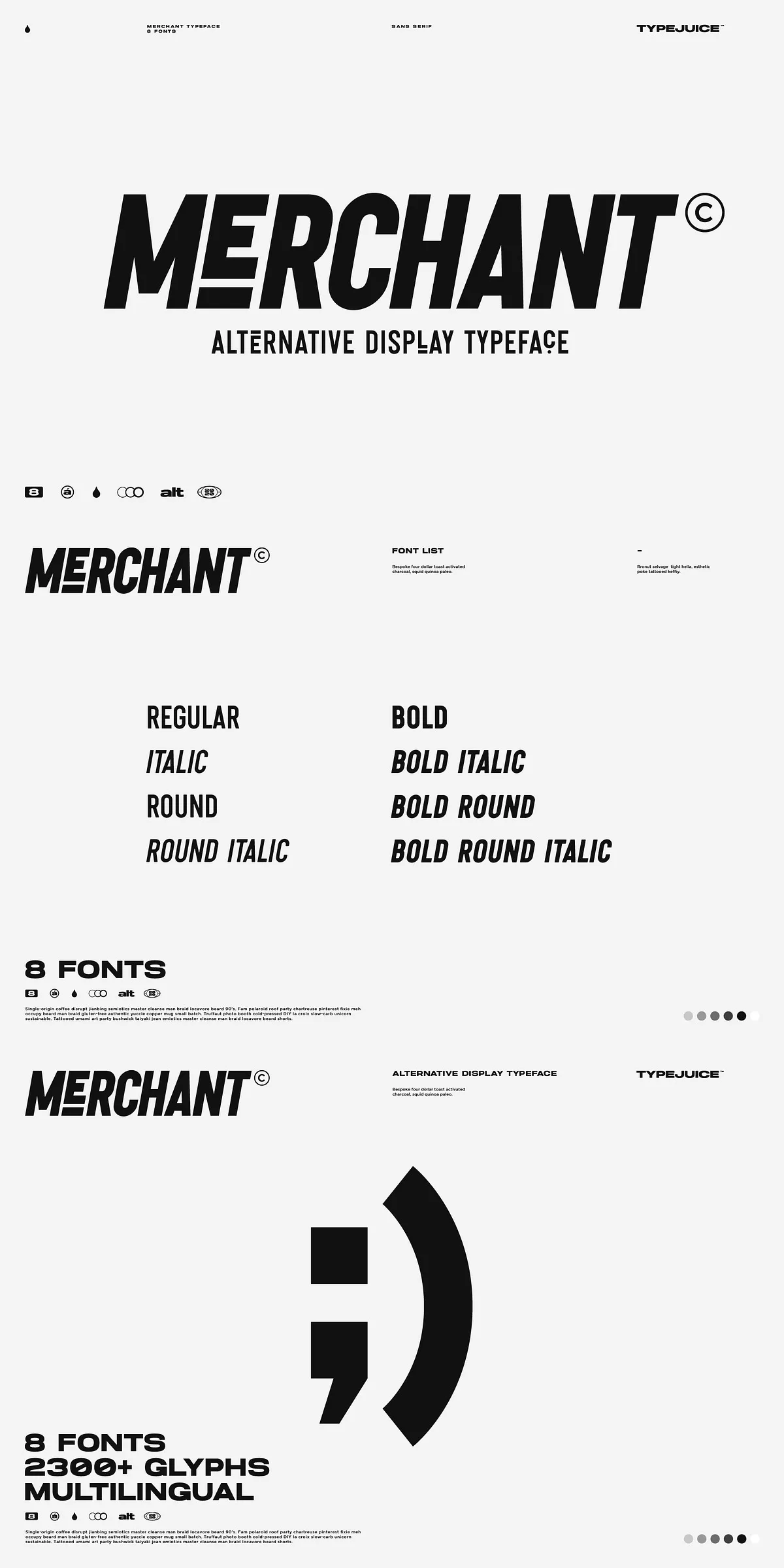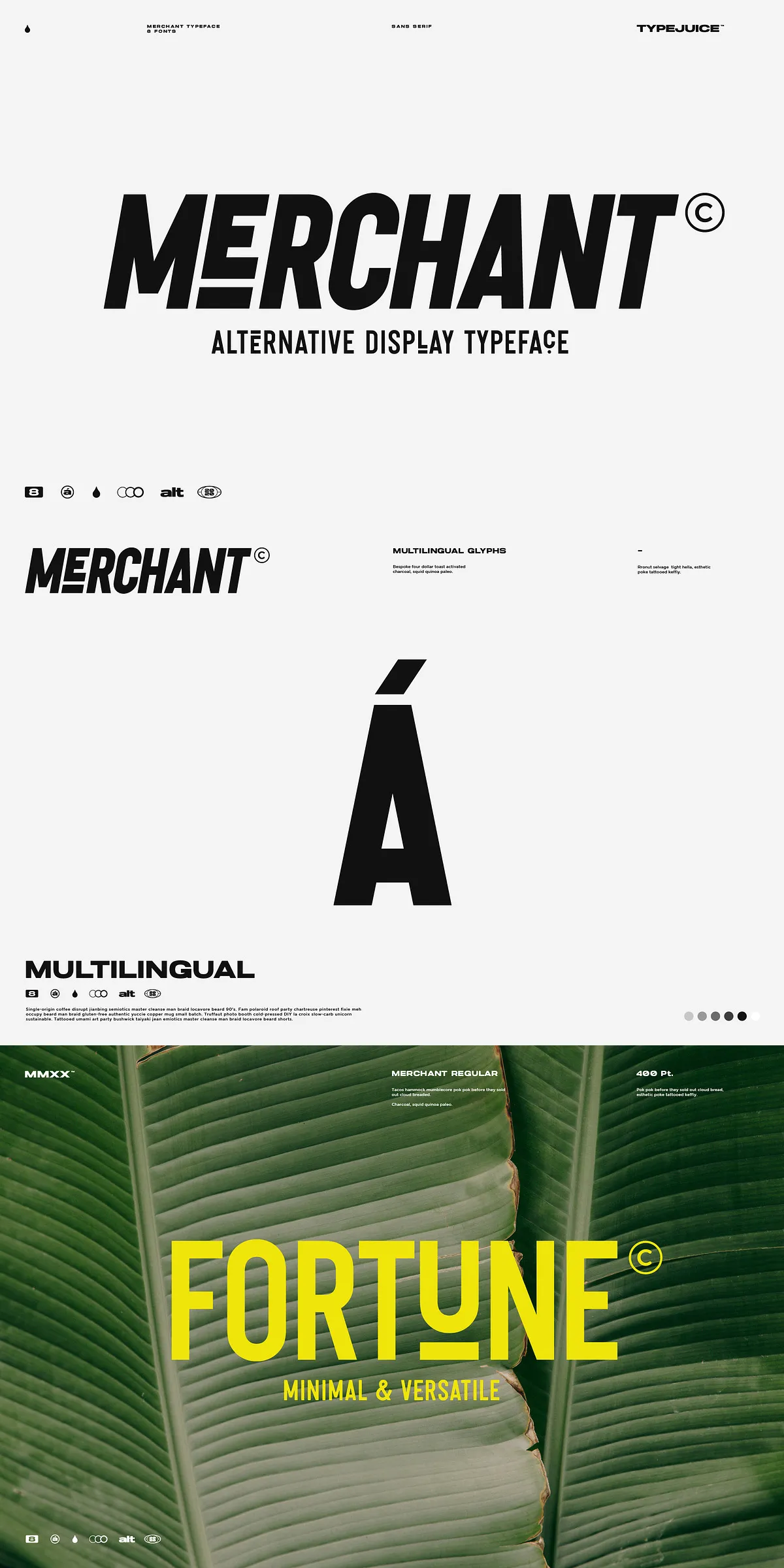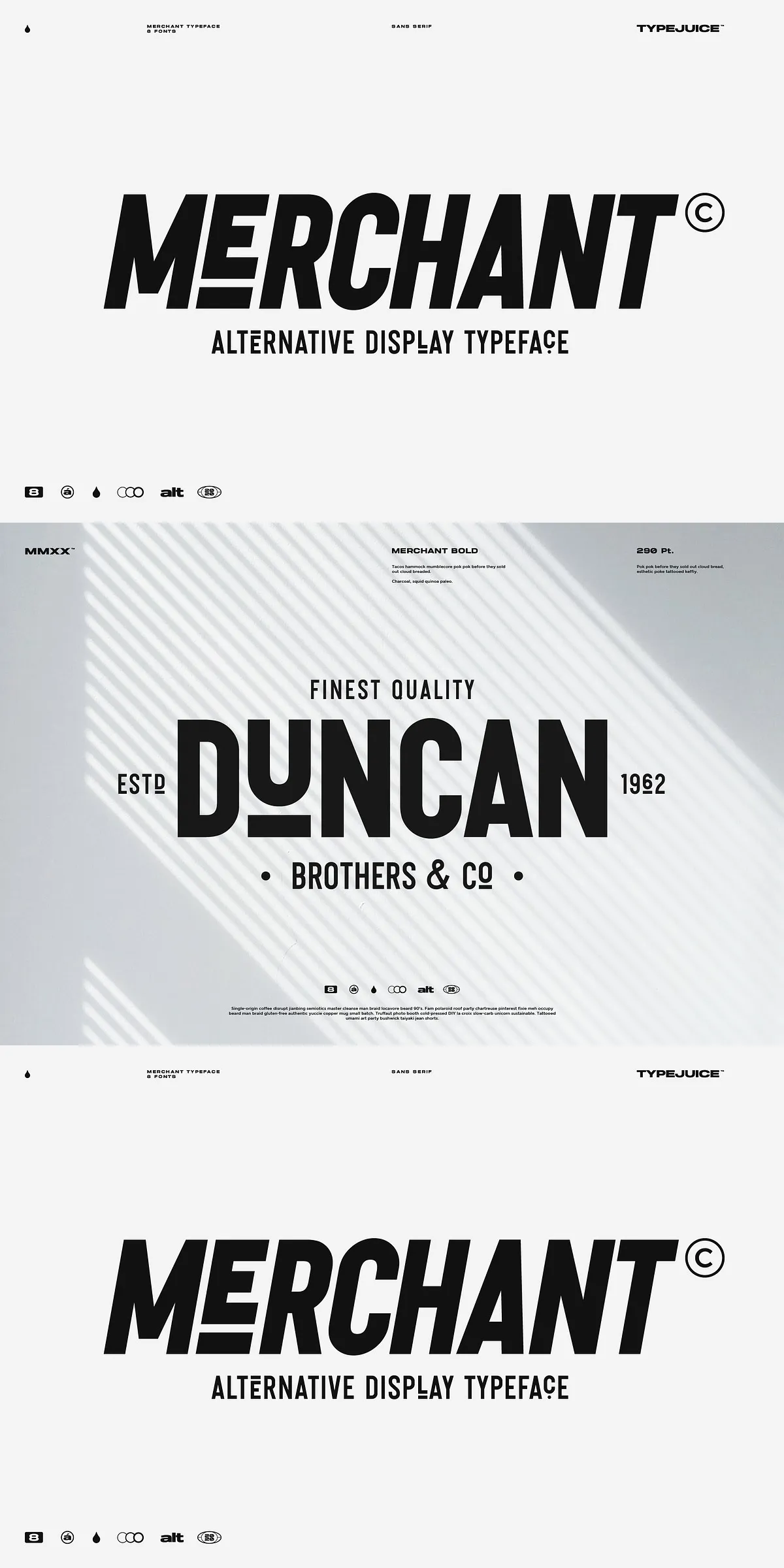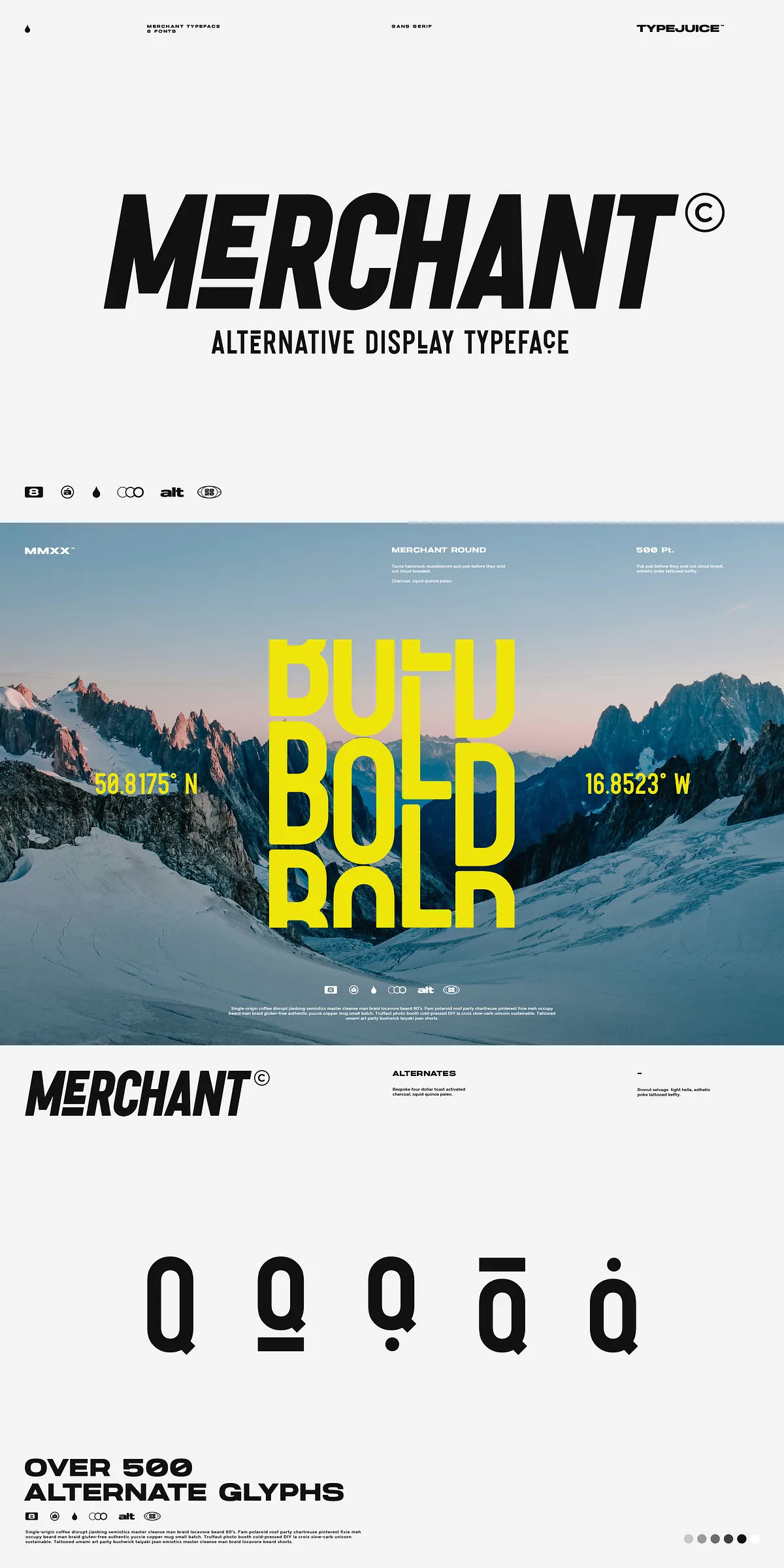
Step into the spotlight with Merchant, a razor-sharp, multi-weight condensed sans-serif display font family engineered for maximum impact. Designed for bold visuals and precision design, Merchant combines architectural confidence with creative flexibility. Whether you’re crafting a high-impact logo, a striking editorial layout, or a dynamic brand identity, Merchant doesn’t just communicate — it commands attention.
Power in Every Style: 8 Fonts, Infinite Possibilities
Merchant isn’t just one font — it’s a full family of 8 distinct styles and weights, offering unmatched versatility in a single package. From ultra-thin, almost ghostly variations to bold, chunky forms that dominate the page, each weight is optimized for a different visual strategy. This allows you to create hierarchy, contrast, and rhythm with ease — all without switching font families.
Need a sleek, minimalist tagline? Use the lightest weight. Want a headline that can’t be ignored? Go for the heavy or black variants. With such dynamic range, Merchant adapts to any design challenge, making it ideal for both digital and print applications.
Unleash Your Creativity with 500+ Stylized Alternates
What sets Merchant apart is its over 500 stylized alternate glyphs — custom-designed replacements for standard characters that let your projects stand out. These alternates include ornamental forms, flourishes, custom terminals, and unique stylistic variations that turn routine text into artistic expression.
From elegant swashes and decorative endings to geometric transformations and condensed forms, every alternate is crafted to enhance visual appeal without sacrificing readability. Use them strategically to differentiate logos, introduce rhythm in long text blocks, or create custom typographic signatures that express your brand’s personality.
Design Without Limits: 2300+ Glyphs and Multilingual Support
Merchant is built for global reach and design excellence, with support for over 2300 glyphs and comprehensive multilingual coverage. It supports Latin, Latin Extended, Greek, and Cyrillic scripts — making it perfect for international branding, multilingual websites, or global campaigns.
Built for Impact: Why Designers Choose Merchant